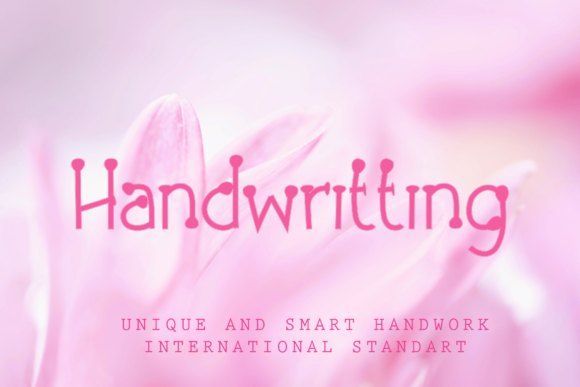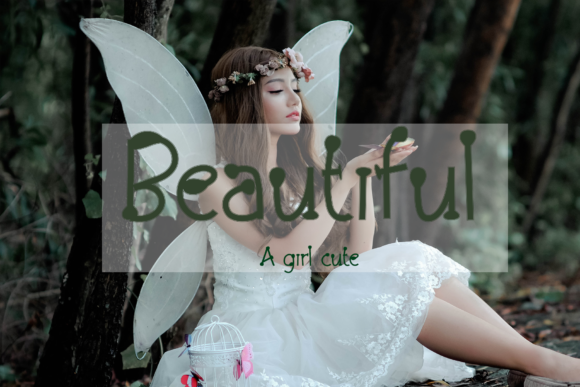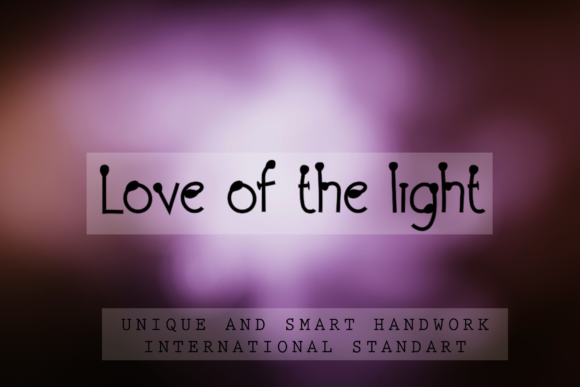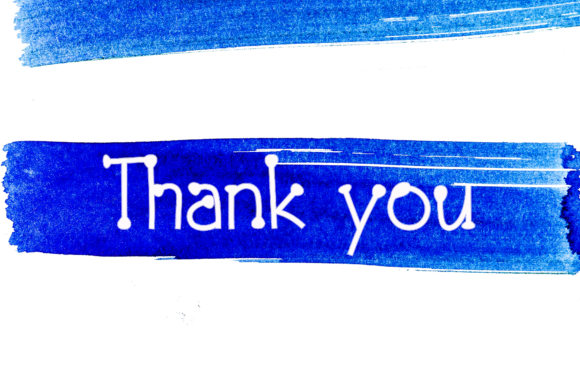
Cuneiform Font: A Unique and Eye-Catching Display Font for Your Designs
Are you tired of using the same old fonts in your designs? Do you want to add a touch of uniqueness and personality to your creations? Look no further than the Cuneiform font! This hand-stroked display font is sure to make your designs stand out and leave a lasting impression.
What is Cuneiform Font?
Cuneiform is a very unique and eye-catching display font, created with hand strokes to make it look more real. The font’s distinctive style is inspired by ancient cuneiform writing, but with a modern twist. The hand-stroked approach gives the font a personal and organic feel, making it perfect for designers and crafters who want to add a touch of warmth and character to their work.
Key Features of Cuneiform Font
- Unique and eye-catching style: The Cuneiform font’s distinctive hand-stroked style sets it apart from other fonts and makes it perfect for designs that need to stand out.
- Versatile: The font’s versatility makes it suitable for a wide range of design applications, from posters and flyers to social media graphics and branding.
- Hand-stroked: The font’s hand-stroked approach gives it a personal and organic feel, making it perfect for designers and crafters who want to add a touch of warmth and character to their work.
How to Use Cuneiform Font in Your Designs
The Cuneiform font is perfect for a wide range of design applications, including:
- Posters and flyers: Use the Cuneiform font to create eye-catching posters and flyers that will grab attention and leave a lasting impression.
- Social media graphics: Add a touch of personality to your social media graphics with the Cuneiform font, making them stand out in a crowded online space.
- Branding and logos: Use the Cuneiform font to create unique and memorable logos and branding materials that will help your business or organization stand out.
- Invitations and cards: Add a touch of elegance and sophistication to your invitations and cards with the Cuneiform font, making them perfect for special occasions.
Tips for Using Cuneiform Font
- Experiment with different colors: The Cuneiform font looks great in a variety of colors, so don’t be afraid to experiment and find the perfect hue for your design.
- Mix and match with other fonts: The Cuneiform font pairs well with a range of other fonts, so try mixing and matching it with other fonts to create a unique and interesting look.
- Use it sparingly: While the Cuneiform font is eye-catching, it can be overwhelming if used too much. Use it sparingly to create a focal point in your design.
The Cuneiform font is a unique and eye-catching display font that is perfect for designers and crafters who want to add a touch of personality and character to their work. With its hand-stroked approach and versatile style, it’s sure to make your designs stand out and leave a lasting impression. So why not give it a try and see the amazing designs you can create!